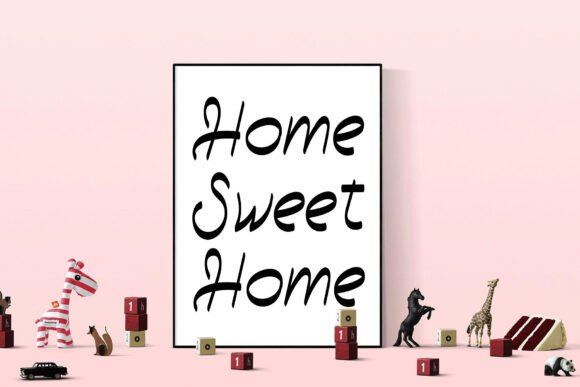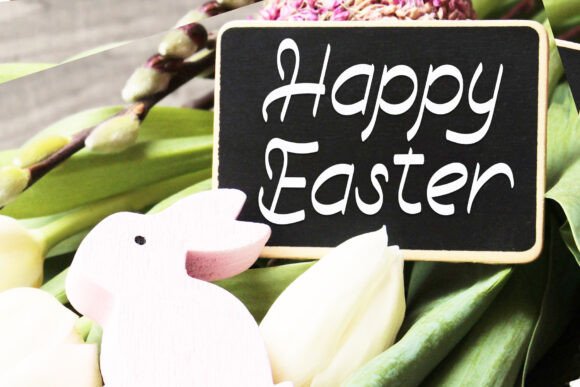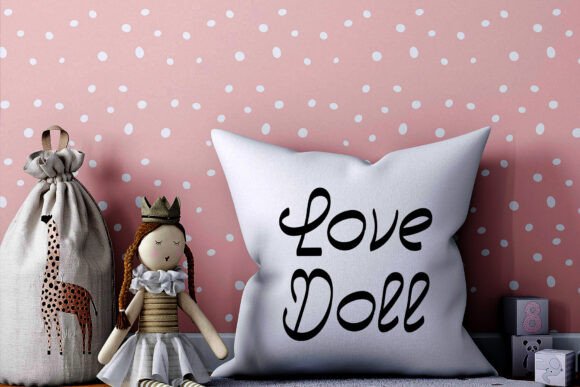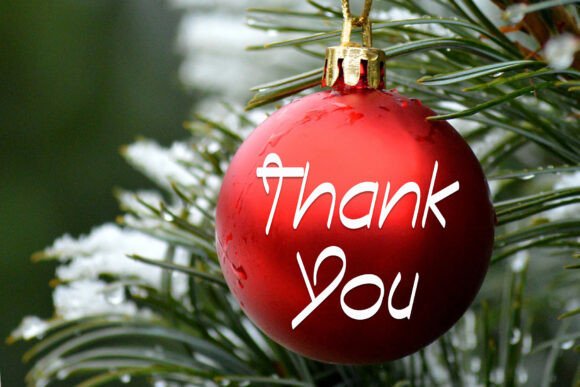
Introduction to Rakha Font
As designers, we’ve all been there – staring at a blank canvas, trying to bring our creative vision to life. The perfect font can make all the difference, elevating our ideas from mere concepts to breathtaking realities. That’s exactly where the Rakha Font comes in, offering a unique and elegant solution for designers seeking a handwritten touch.
Whether you’re working on a wedding invitation, a greeting card, or a billboard, Rakha Font is the perfect design resource to add a personal and high-quality feel to your project. With its varied baseline and natural, hand-made touch, this font is sure to make your ideas shine. And the best part? It’s PUA encoded, allowing you to access all glyphs and swashes with ease, making it a valuable asset for any creative project.
Key Features of Rakha Font
- Features a transparent background, ideal for use on various backgrounds and designs
- Includes a wide range of characters, including uppercase and lowercase letters, numbers, and punctuation marks
- Resolution: Optimized for high-resolution displays, ensuring crisp and clear text rendering
- Size: Designed to be versatile, suitable for use in various font sizes, from small to large
- Unique characteristic: A modern, clean, and elegant design that adds a touch of sophistication to any creative project
Honest Review: Rakha Font
I recently stumbled upon the Rakha Font while searching for a design resource for my creative project. I must say, I’m impressed with what I found. The Rakha Font is a beautifully crafted font that’s perfect for any design enthusiast.
- ✨ High quality design: The Rakha Font is incredibly detailed and has a professional touch to it.
- ✨ Transparent background: The font has a transparent background, making it easy to use in any design project.
However, I do have a few concerns with the Rakha Font. ⚠️ One of the limitations is that it’s not suitable for body text, as it can be quite ornate and overwhelming.
Overall, I’m very impressed with the Rakha Font. It’s a great design resource for anyone looking to add a touch of elegance to their creative project. The high quality design and free download make it a must-have for any designer.
Tips for Getting the Most Out of Rakha Font
Use Rakha Font in combination with a transparent background to create visually appealing designs. Experiment with different font sizes and styles to add depth and interest to your project. Rakha Font is a valuable design resource that can elevate your creative project to the next level.
Rakha Font is perfect for a variety of design applications, including business presentations, social media graphics, and web design. Its high-quality design and transparent background make it a versatile choice for any creative project.